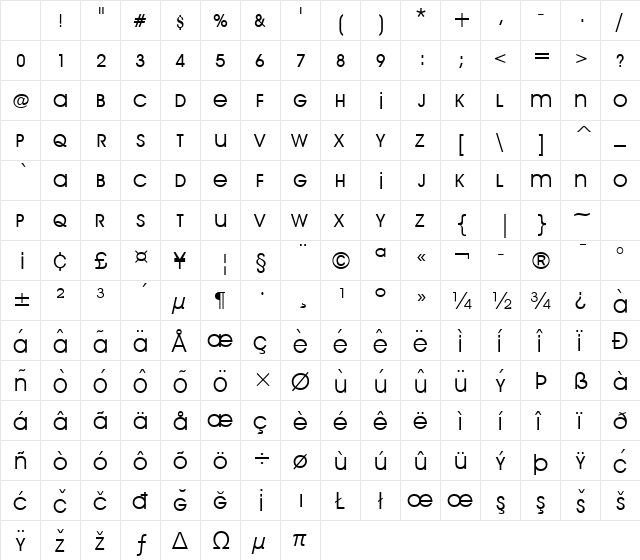
Arri Garde Regular
Foundry: StereoType
Design Context for Arri Garde
Arri Garde is a composed and adaptable typeface that performs quietly and consistently across a wide range of design contexts.